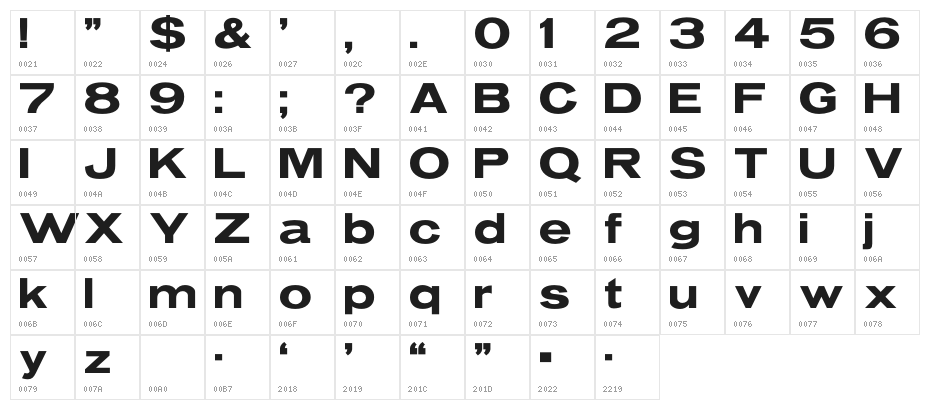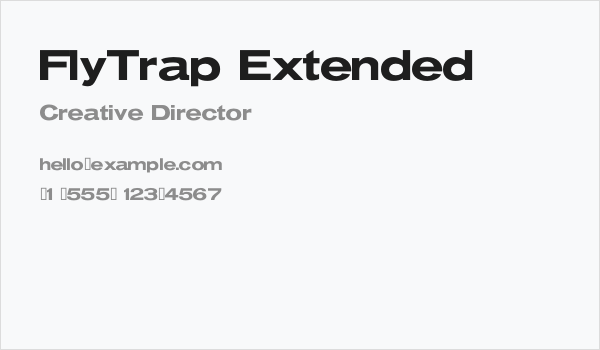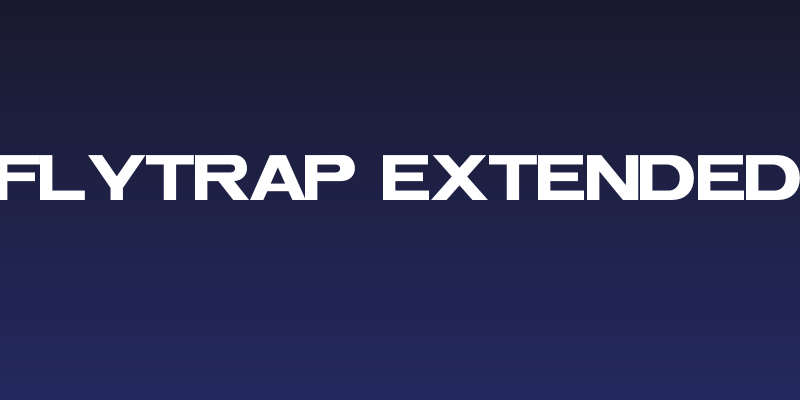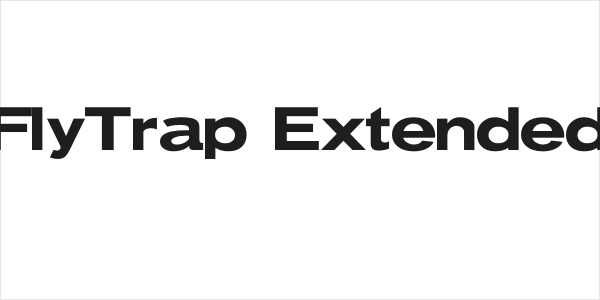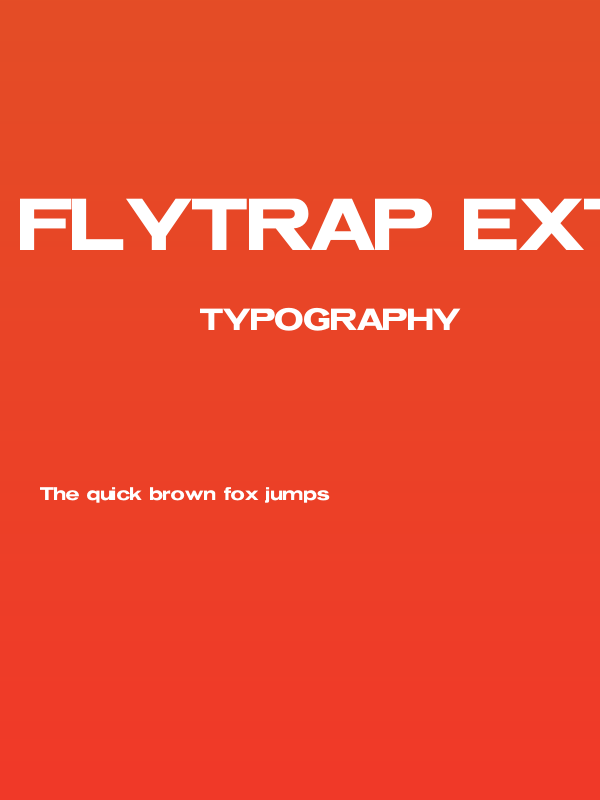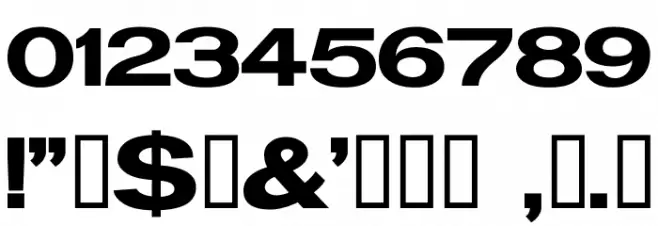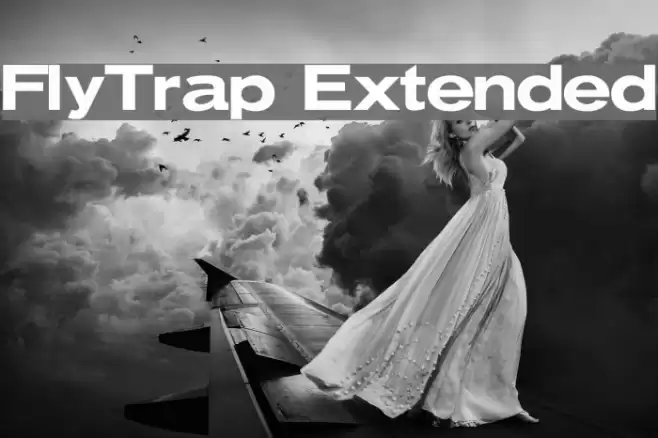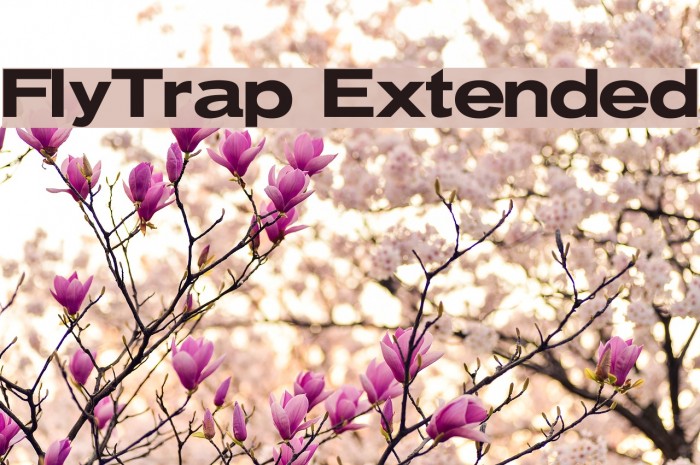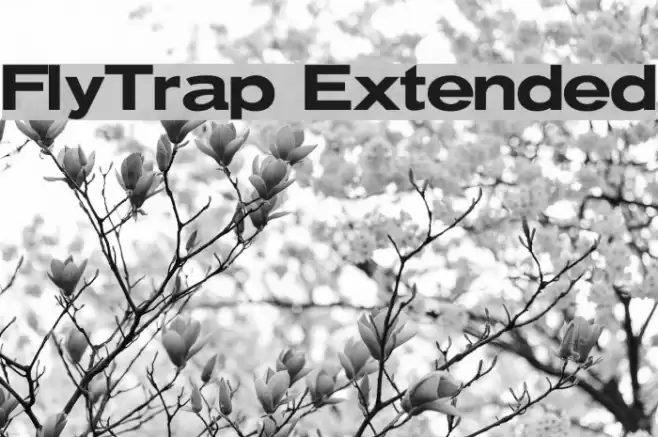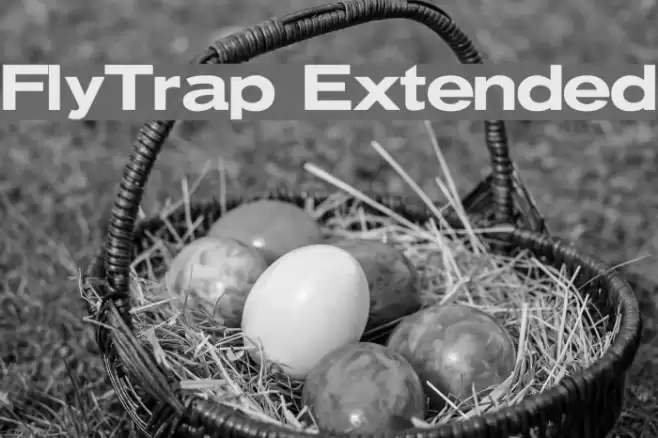
FlyTrap Extended Font
FlyTrap Extended Description
This font exhibits a bold and modern aesthetic with clean, geometric lines and a strong presence. The uppercase letters are uniformly wide, giving a sense of stability and confidence. The lowercase characters maintain a consistent weight, contributing to a harmonious and balanced appearance. The numerals are clear and easy to read, making them suitable for various applications. Special characters are designed with the same boldness, ensuring they stand out effectively. Overall, the font's design is sleek and contemporary, ideal for making a strong visual impact.
| Use Case | Headlines, Logos, Branding |
| Proposed Projects | Ideal for branding, advertising, headlines, and digital media where a bold statement is needed. |